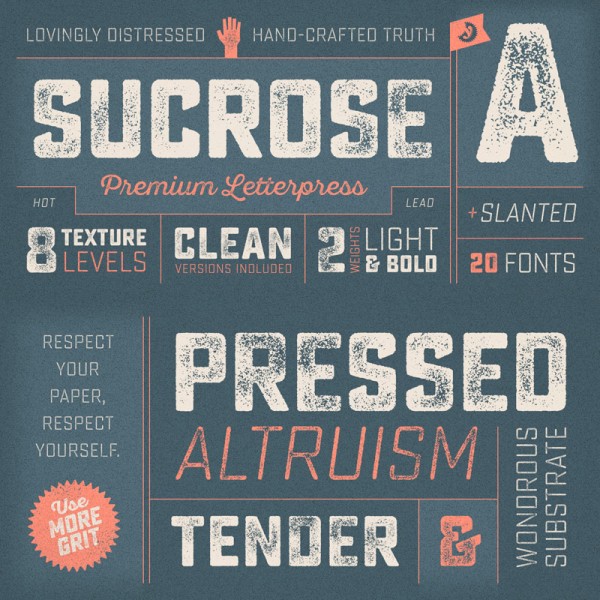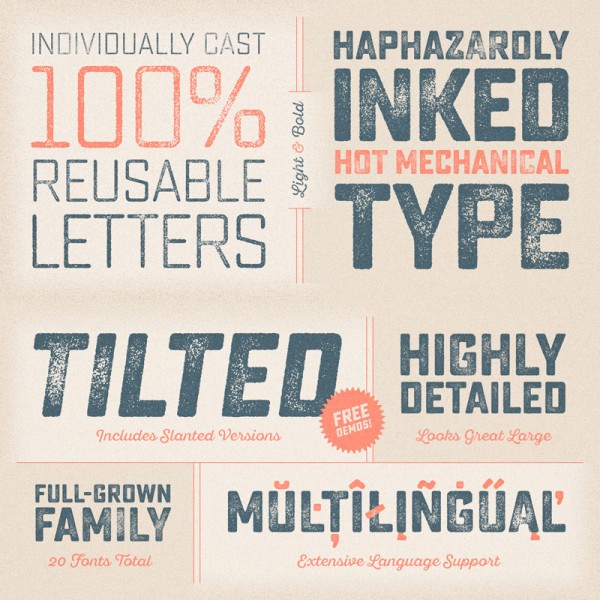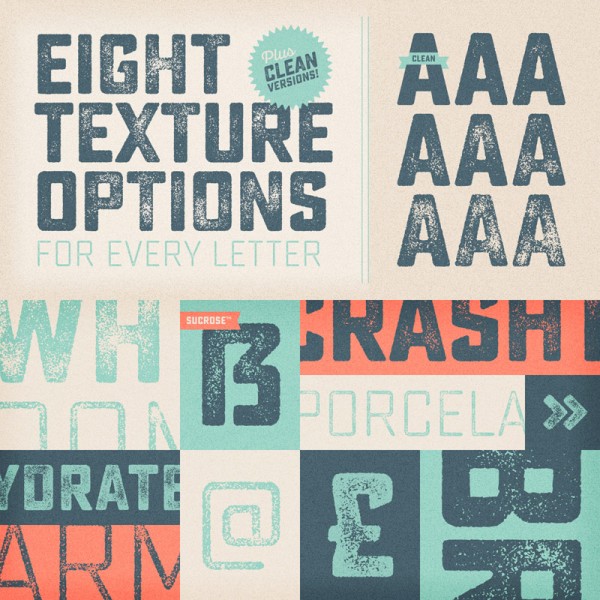
The Sucrose font family from Yellow Design Studio, a new distressed letterpress typeface for highest demands.
Designer Ryan Martinson of the Yellow Design Studio has created and published the Sucrose font family in 2015. It’s a high-resolution letterpress typeface based on a rectangular design and authentic textures. Sucrose is equipped with eight distress options for all letters as well as four levels for other letters. You can mix all these texture options to create a more realistic style. The full family consists of 20 fonts in total including slim and bold weights plus clean and slanted styles. In addition, the Sucrose font family is equipped with one free demo version! With an extensive set of characters, Sucrose supports multiple languages. The family is available as webfont and desktop font. For further information, please follow the link below.